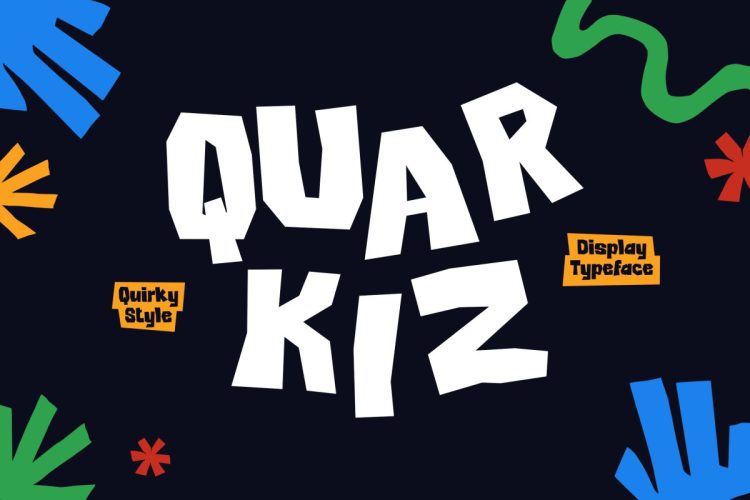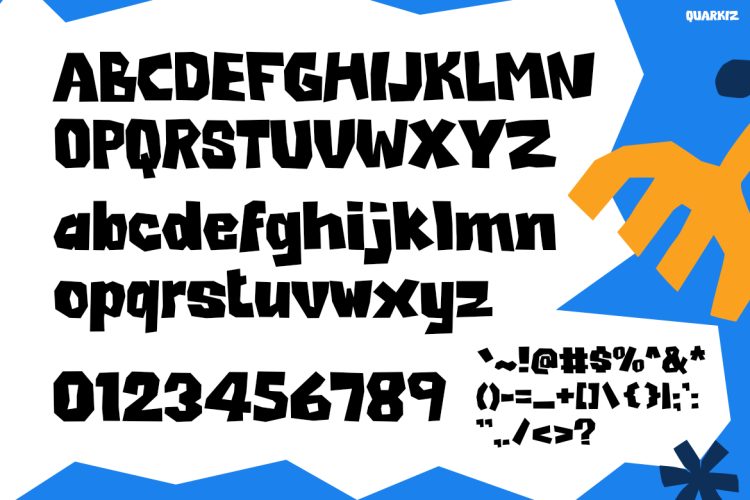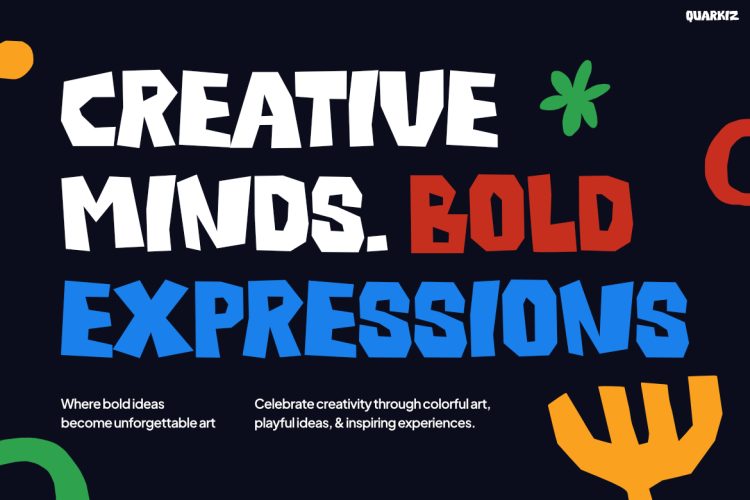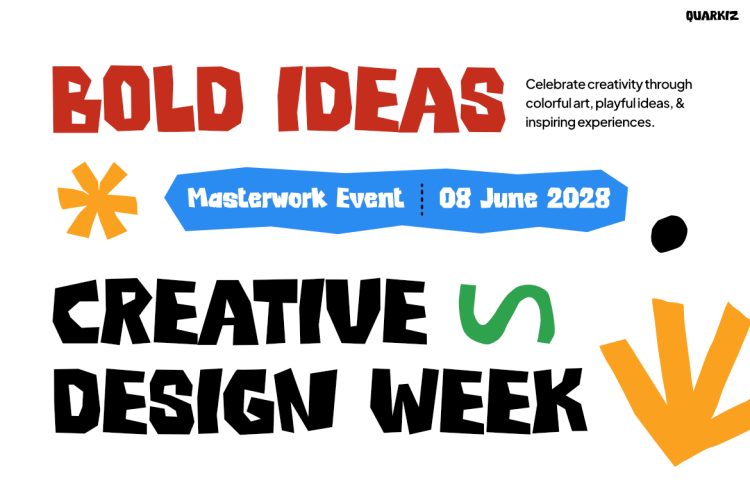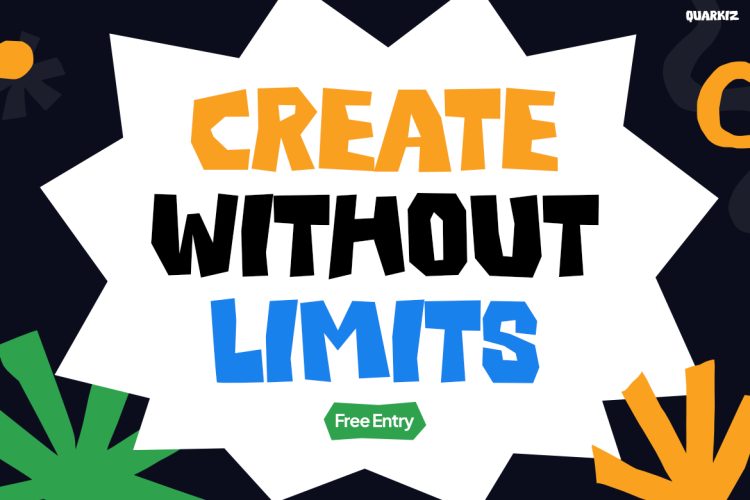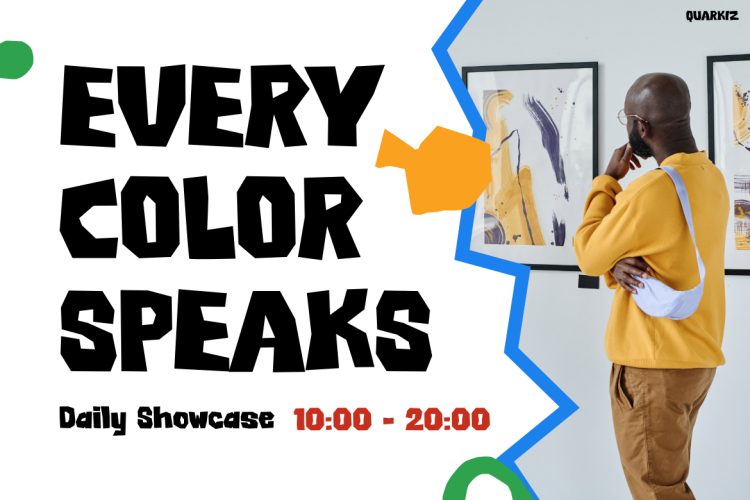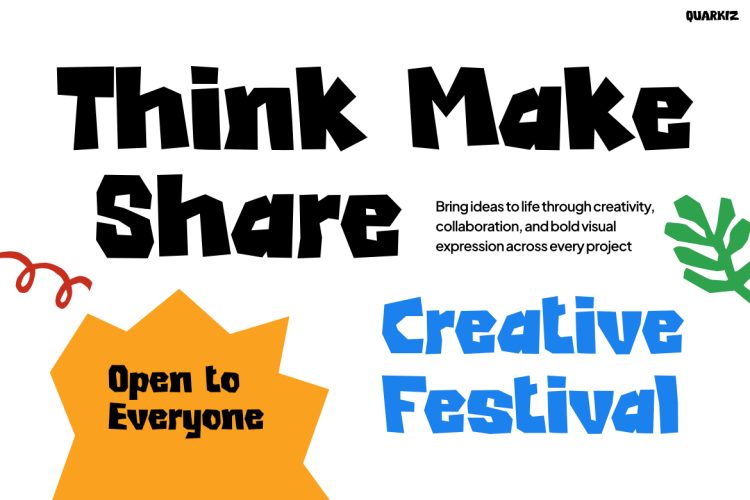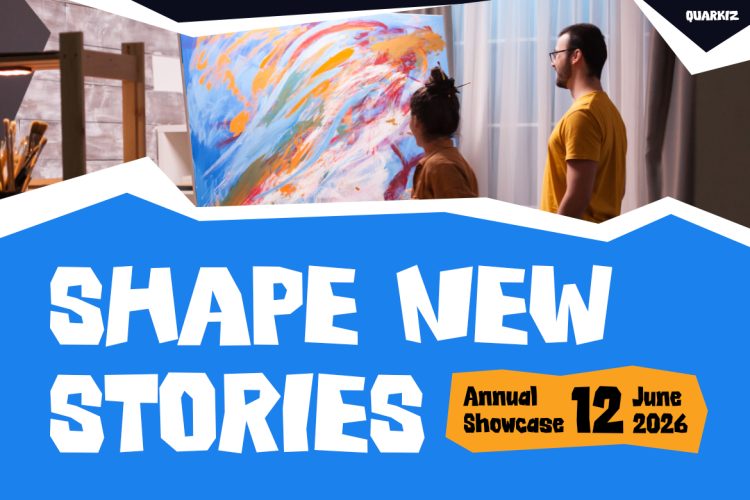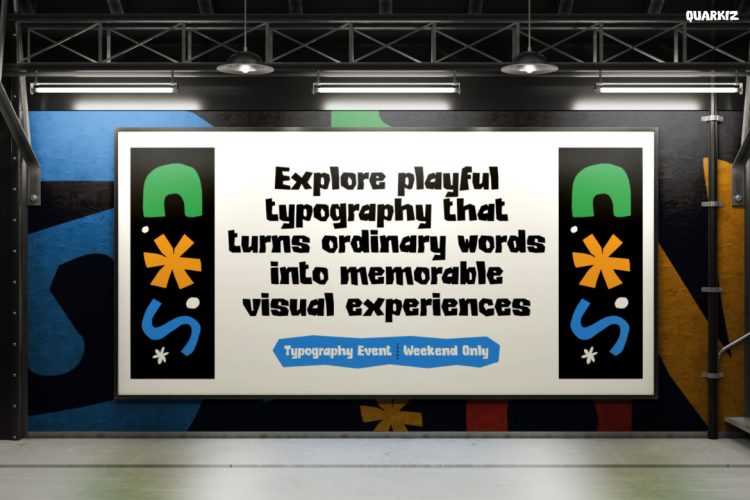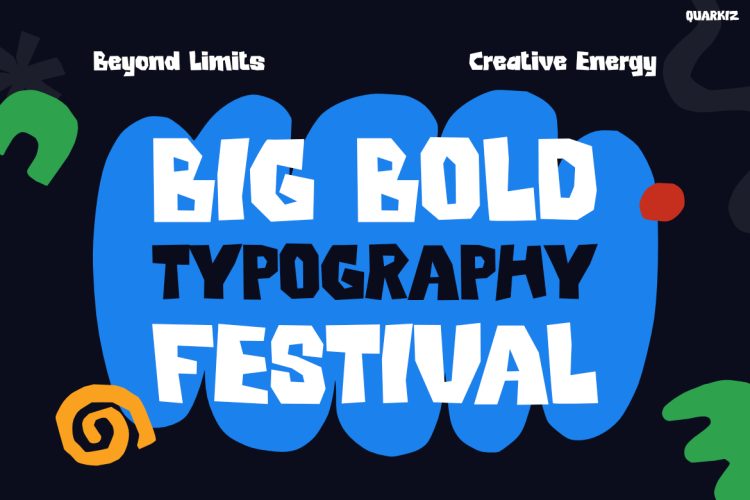
Kids Font Quarkiz โ Big Shapes. Bright Ideas. Endless Fun.
Kids Font Quarkiz turns every word into a playful adventure with bold, quirky letterforms that overflow with personality. Rather than using predictable typography, Quarkiz mixes chunky shapes, handcrafted details, and joyful proportions to create a lively visual style that instantly sparks imagination. Moreover, its energetic design fills every headline with excitement, while its friendly appearance keeps every message approachable. As a result, your projects look cheerful, expressive, and impossible to ignore. At the same time, the thick letterforms provide excellent readability on both digital and printed materials, making Quarkiz as practical as it is playful.
Create Designs That Make People Smile
Kids Font Quarkiz encourages creativity through typography that feels fun, fearless, and full of life. Not only does it add a playful twist to every layout, but it also helps brands build a memorable and approachable identity. In addition, its handcrafted style works perfectly for children’s books, school events, educational materials, creative workshops, art festivals, toy packaging, birthday invitations, classroom decorations, posters, stickers, YouTube thumbnails, and colorful social media graphics. Likewise, its bold shapes pair beautifully with bright colors and playful illustrations. Meanwhile, the balanced spacing keeps every composition clean and easy to read. Consequently, your designs attract attention while creating a joyful experience for every audience.
Kids Font Quarkiz Perfect For
- Kids’ brands and products
- Educational projects
- School events and classrooms
- Toy and game packaging
- Children’s books
- Birthday invitations
- Festival posters
- Social media graphics and stickers
Bring Every Idea to Life
If you want typography that spreads creativity and happiness, Quarkiz is ready to lead the way. Furthermore, its playful personality instantly brightens every design. As a result, your projects become more engaging, memorable, and full of positive energy. Finally, choose Quarkiz today and let your creativity grow bigger, louder, and more colorful with every letter.